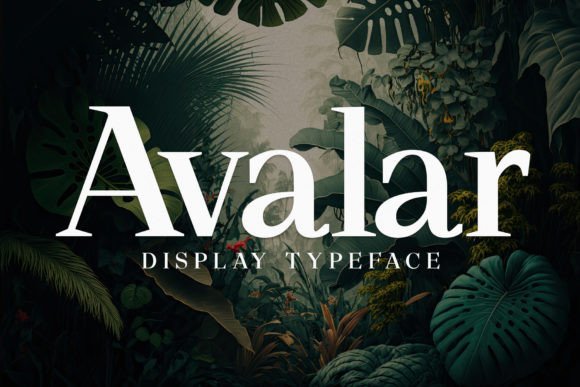
The Perfect Blend of Elegance and Boldness
Imagine you’re sitting in a cozy café, surrounded by the soft glow of morning sunlight, sipping a warm cup of coffee, and suddenly, a beautiful invitation catches your eye. The words ‘Will you marry me?’ leap out at you, and you can’t help but smile. This is the kind of creative moment that inspires us, and it’s exactly what the Avalar Font is designed to evoke.
The Avalar Font is a stunning serif display typeface that’s perfect for making a statement. Whether you’re designing wedding invitations, magazines, books, or packaging, this font is sure to turn heads. Its timeless quality means it will look beautiful in the past, present, and future, making it a valuable addition to any designer’s toolkit.
With its unique blend of elegance and boldness, the Avalar Font is the perfect choice for designers who want to add a touch of sophistication to their work. Its versatility and timeless appeal make it a must-have for any creative project.
Avalar Font Key Features
- Character Set: This font includes a comprehensive character set, covering Latin, Cyrillic, and Greek alphabets, as well as various symbols and punctuation marks.
- Unique Characteristics: Avalar Font features a unique blend of modern and vintage elements, with intricate details and ornaments that add a touch of elegance and sophistication to any design.
- Font Weight and Style: Avalar Font is available in 6 font weights (Light, Regular, Medium, Bold, Extra Bold, and Black) and 3 font styles (Normal, Italic, and Oblique), providing designers with a wide range of options to achieve the desired look and feel.
Avalar Font Review
I recently had the chance to work with Avalar Font, and I must say, it’s an interesting addition to any design project. ✨ The elegant and modern design of Avalar makes it perfect for creating a professional and sleek look for your website or application.
- ✨ Unique and modern design that can help your project stand out.
- ✨ Avalar Font is highly legible, making it perfect for both on-screen and print use.
- ✨ It comes in a range of weights and styles, allowing you to customize your project’s look to your heart’s content.
- ⚠️ Avalar Font may not be the best choice for projects that require a more traditional or classic look.
- ⚠️ Some users may find the font to be too modern or avant-garde, which may not appeal to their personal taste.
Avalar Font is a solid addition to any design project. While it may not be perfect for every project, it’s definitely worth considering if you’re looking for a modern and sleek look. With its elegant design and high legibility, Avalar Font is sure to impress your audience.
For a professional look, pair Avalar with a clean and minimalist design aesthetic.
- Use the font’s unique features, such as the rounded edges and soft curves, to create a visually appealing design.
For a unique look, experiment with layer blending modes and textures to add depth to your design.
- Use the font’s clean and modern aesthetic to create a professional-looking design.
For a cohesive look, use Avalar consistently throughout your presentation or document.
Avalar Font is perfect for:
- Modern and minimalist designs
- Corporate and professional branding
- Web and mobile app design
For optimal results, use Avalar in combination with a clean and simple design aesthetic.